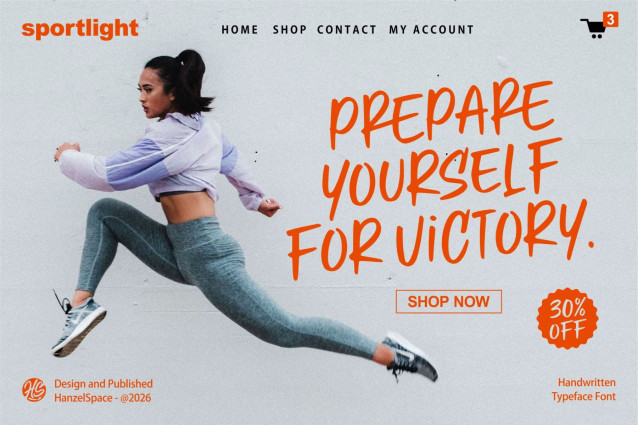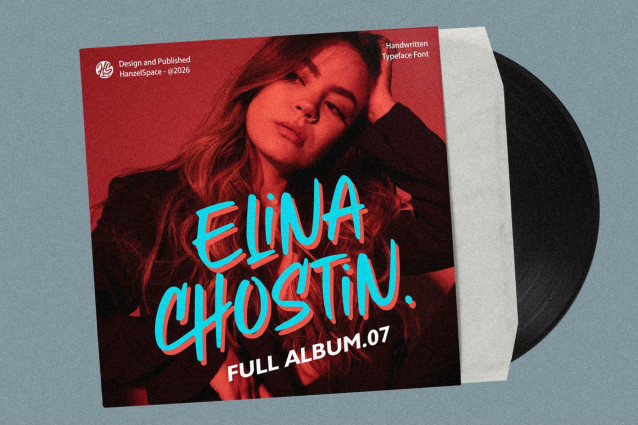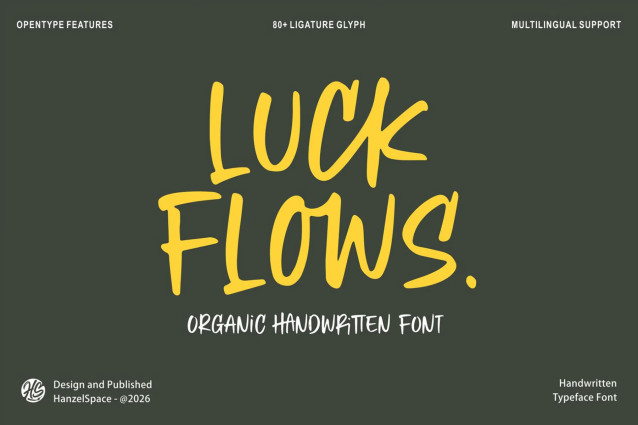
Luck Flows Organic Handwritten Font
Introducing our font “Lock Flows” creating an organic font that reflects the charm of authentic handwriting, a fast hand-drawn font that is still easy to read. This font is very suitable for your design project needs, namely logos, branding, packaging, quotes and others.
Features:
• Uppercase & Lowercase
• Numerals & Punctuation
• Multilanguage Supports
• 80+ Ligatures